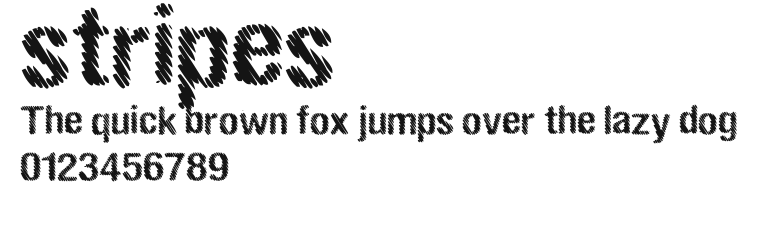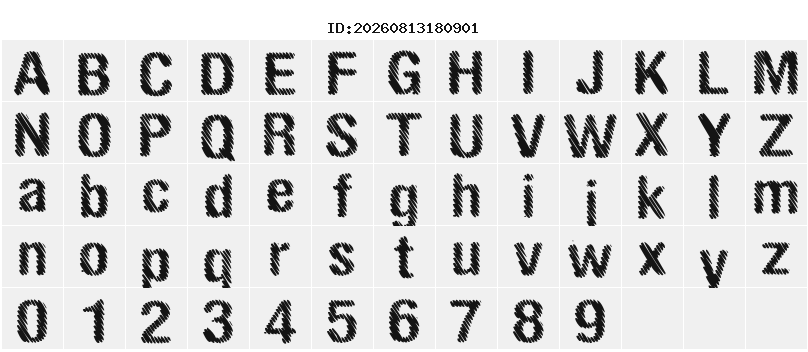
stripes Preview
• Font Name: stripes
• Full Font Name: stripes
• Version: Version 1.00 February 25, 2013, initial release
• PostScript Name: stripes
• Character Count: 93
About stripes.ttf
stripes.ttf is a modern, elegant sans-serif font designed for ultimate readability and visual harmony. Perfect for branding, headlines, web design, and print materials.